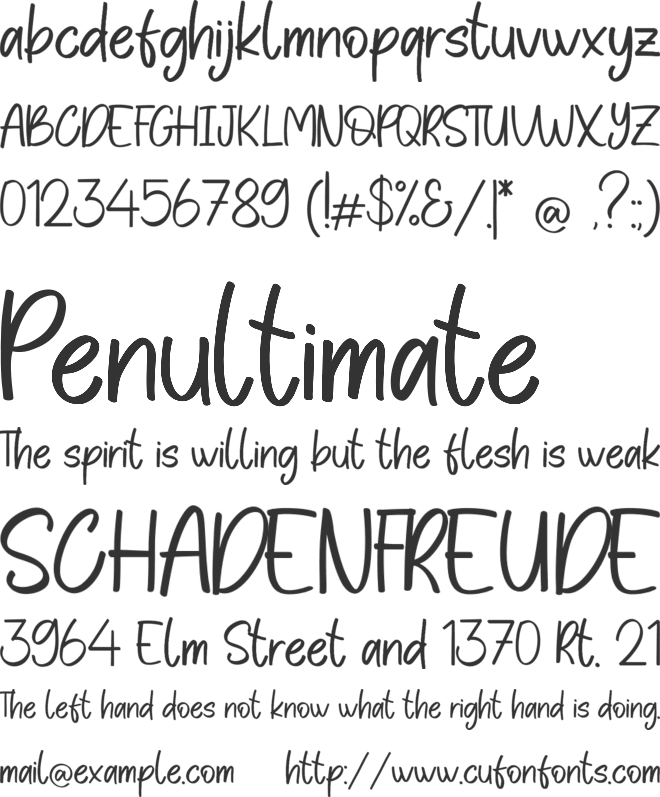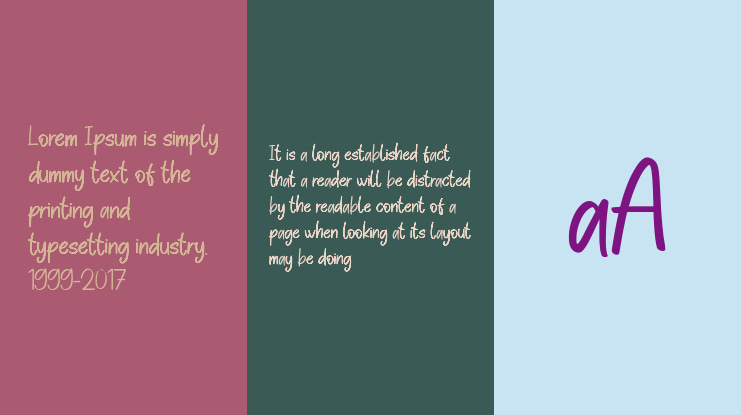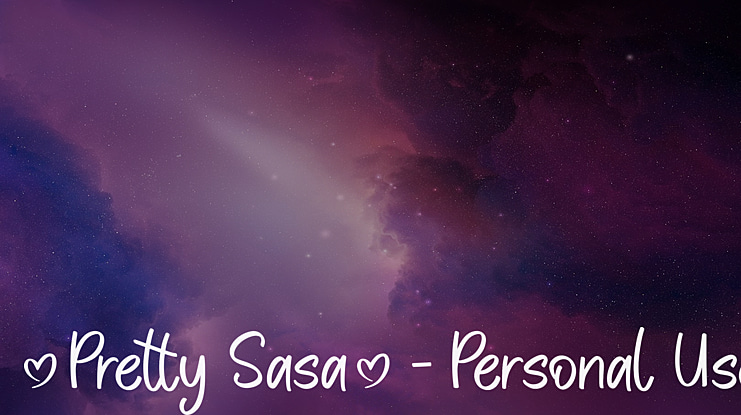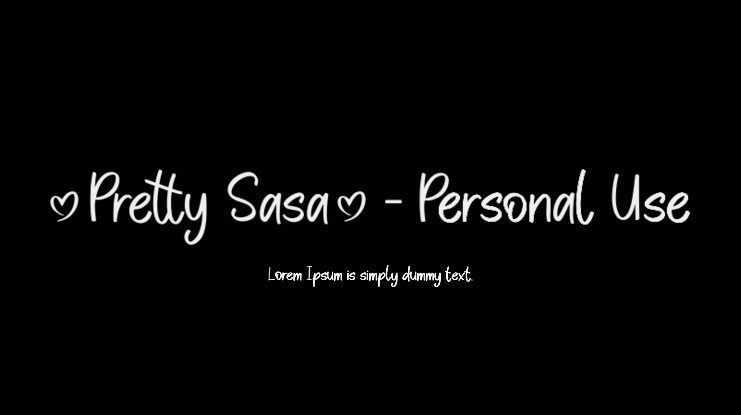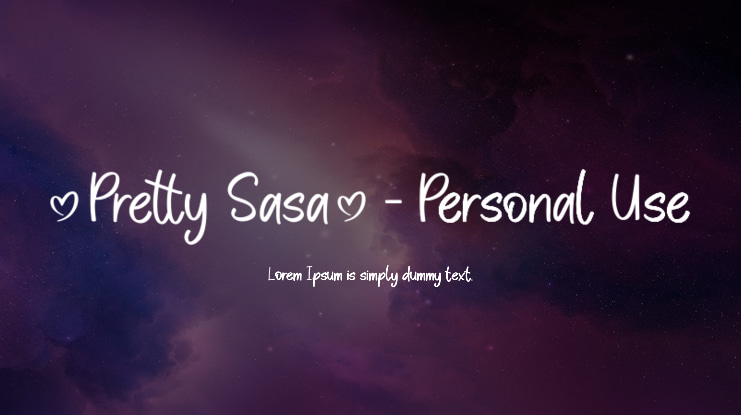
Pretty Sasa - Personal Use Font
Introducing Pretty Sasa is a Handwritten Font.
Pretty Sasa is a cute and friendly handwritten font. It is PUA encoded which means you can access all of the glyphs and swashes with ease! Add it confidently to your favorite creations and let yourself be amazed by the outcome generated.